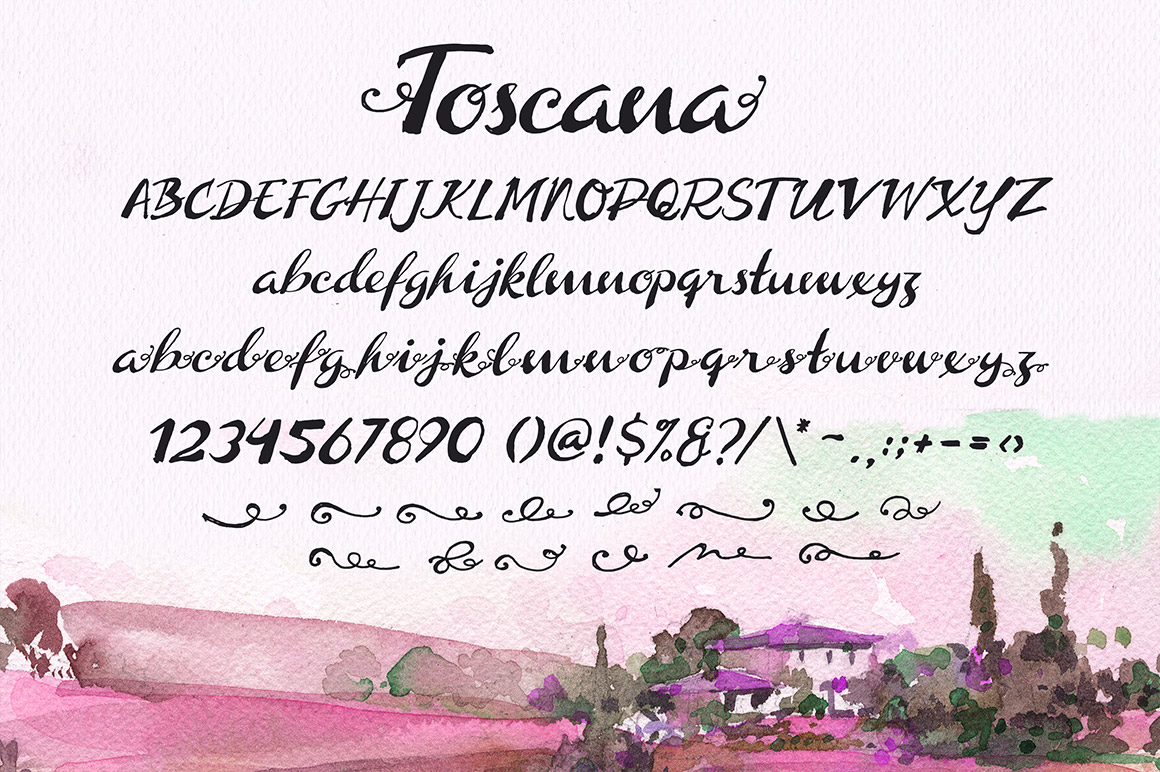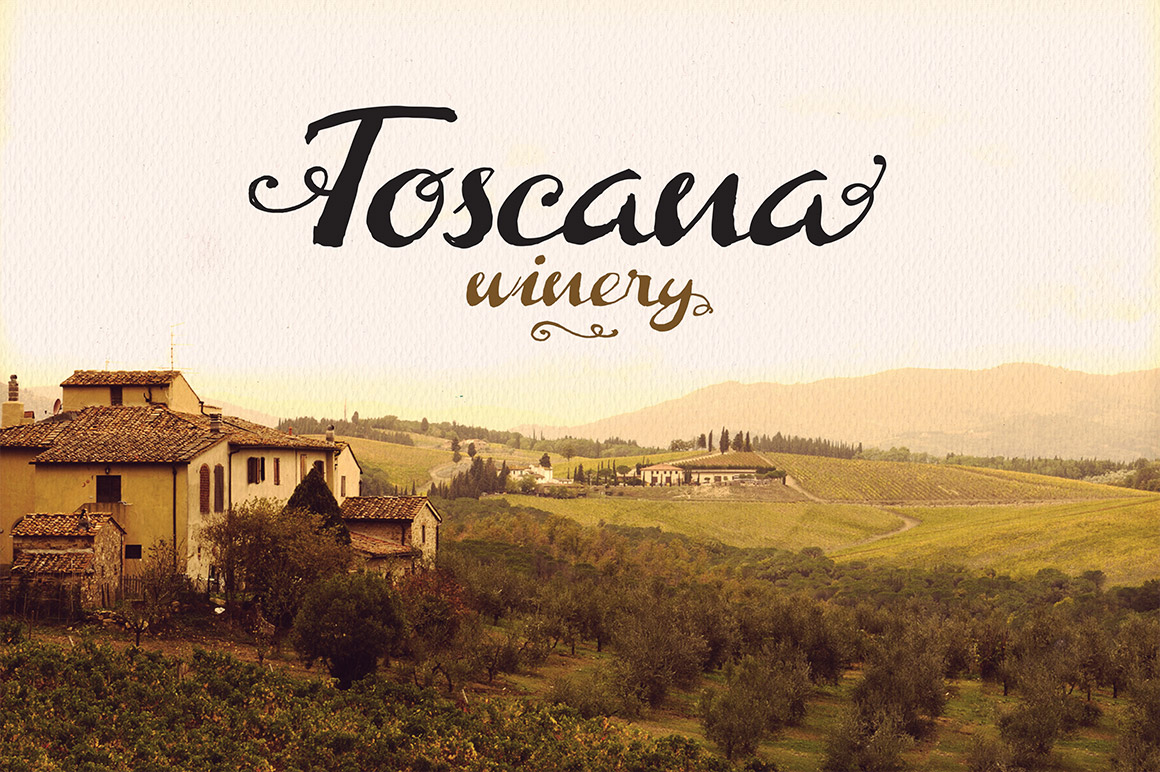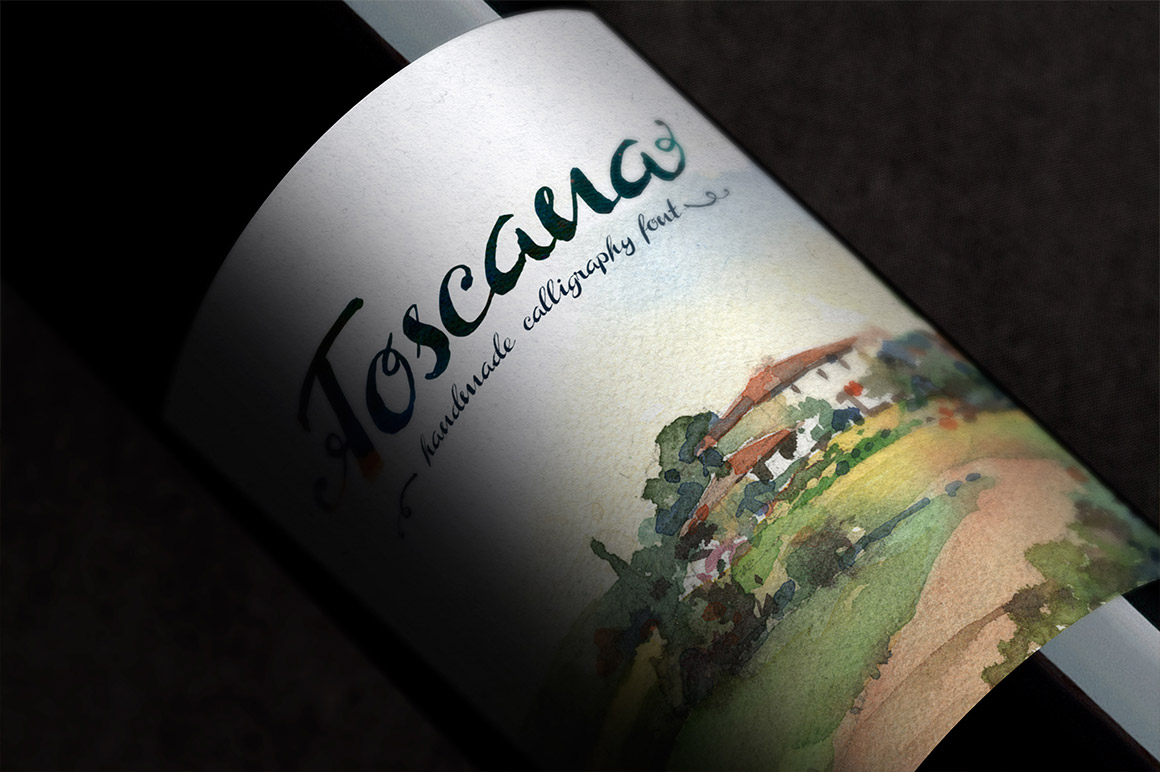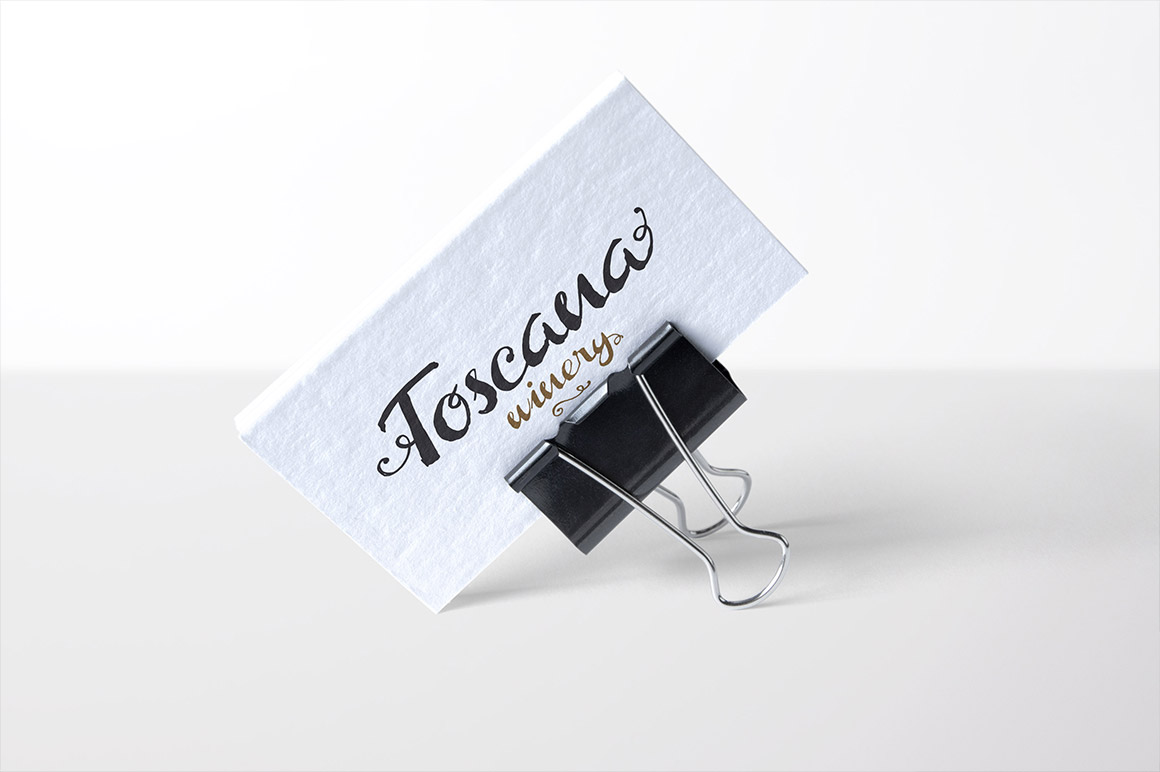
Toscana Font
About Toscana Font
Toscana is a calligraphy style font. Toscane is complete handmade and contains both uppercase and lowercase letters and includes alternate decorative terminal glyphs.